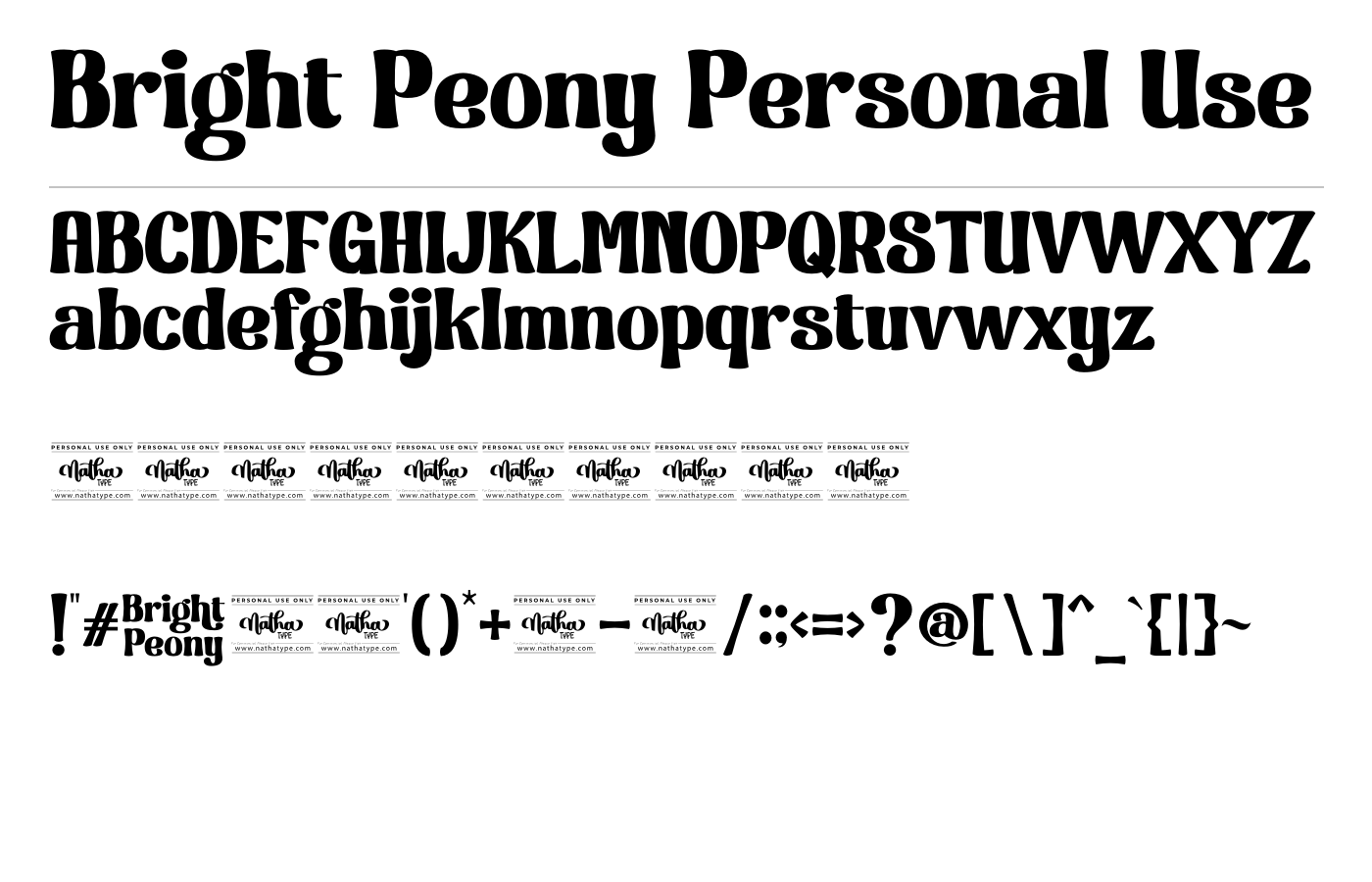
Bright Peony Personal Use is a bold, playful serif font characterized by its chunky, rounded strokes and friendly, warm appearance. Its moderate contrast and unique letter shapes make it ideal for eye-catching headlines, logos, and packaging that want to convey a fun yet sturdy personality. This typeface works best in creative branding and editorial settings where a lively and approachable style is desired.
Bright Peony Personal Use Font
About Bright Peony Personal Use Font
| Font family | Bright Peony Personal Use Font |